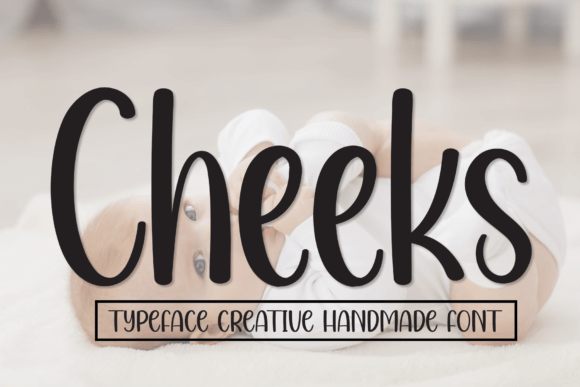
The Sweet Spot: Discovering the Charm of Cheeks Font
I’ll never forget the time I was working on a wedding invitation project, and my client asked for a font that was “sweet, friendly, and not too formal.” I scoured the internet, tried out dozens of fonts, but nothing seemed quite right. That was until I stumbled upon Cheeks Font. This beautiful, handwritten font won me over with its fresh and neat vibe, and I knew immediately it was the perfect fit for the project. In this article, I’ll share my love for Cheeks Font, its features, and how to make the most of it in your designs.
A Personal Review: What I Love About Cheeks Font
Here’s what makes Cheeks Font stand out:
- ✨ Sweet and Friendly: Cheeks Font has a warm, inviting feel that’s perfect for projects that need a personal touch.
- ✅ Fresh and Neat: The font’s clean lines and balanced proportions make it easy to read and visually appealing.
- 🌈 Versatile: Cheeks Font works beautifully for wedding invitations, cards, and any design that needs a fun, whimsical touch.
While Cheeks Font is a stunning addition to any design, there are a few things to keep in mind:
- 🤔 Limited Formality: As a handwritten font, Cheeks may not be the best choice for very formal or corporate projects.
- ⚠️ Glyph Limitations: While Cheeks has a range of glyphs and alternates, it may not have every special character or symbol you need.
The Story Behind Cheeks Font
While I couldn’t find much information on the origins of Cheeks Font, I like to imagine that it was created by a designer who wanted to capture the essence of friendly, handwritten communication. Perhaps they drew inspiration from vintage letters, sweet notes, and warm conversations. Whatever the story, Cheeks Font has become a beloved addition to many designers’ toolkits.
| What type of projects is Cheeks Font best suited for? | Cheeks Font is perfect for wedding invitations, cards, and any design that needs a friendly, whimsical touch. |